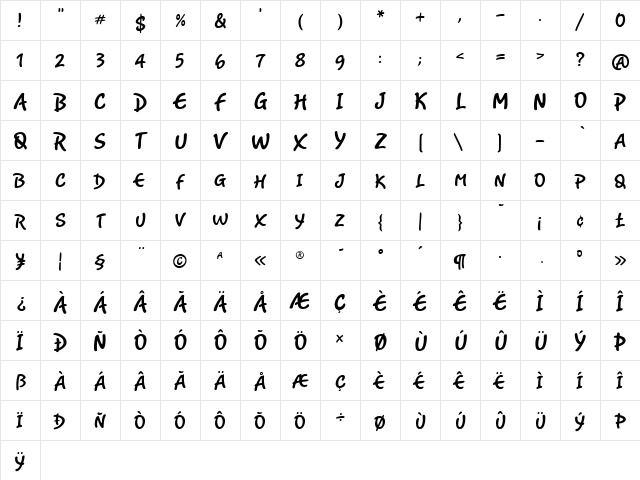
Romy Caps Regular
Foundry: SUDTIPOS. Disenada por Angel Koziupa y digitalizada por Alejandro Paul. Todos los derechos reservados. Buenos Aires, Argentina
Design Context for Romy Caps
Romy Caps is a composed and adaptable typeface that performs quietly and consistently across a wide range of design contexts.
Who designed the Romy Caps Regular font?